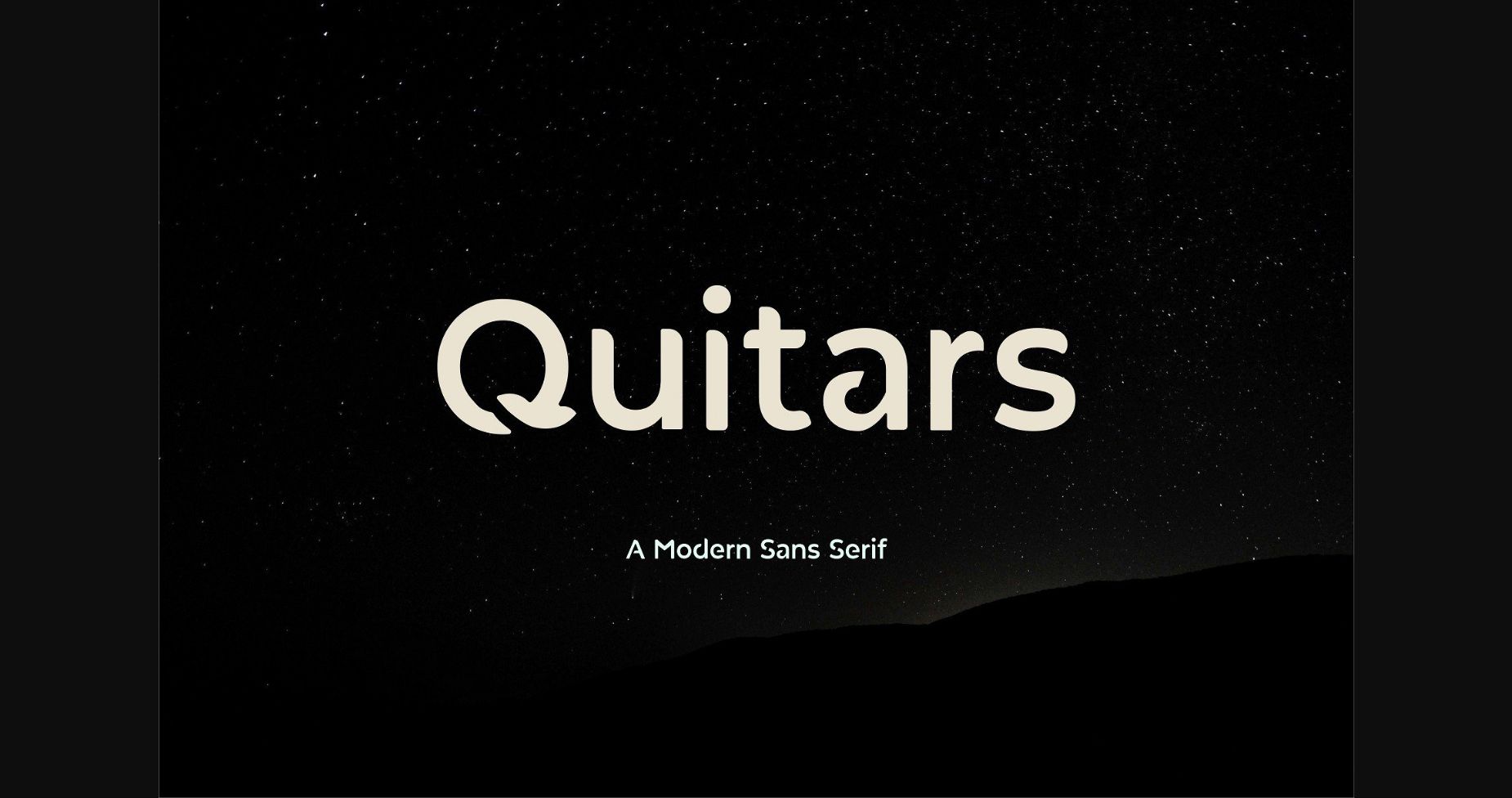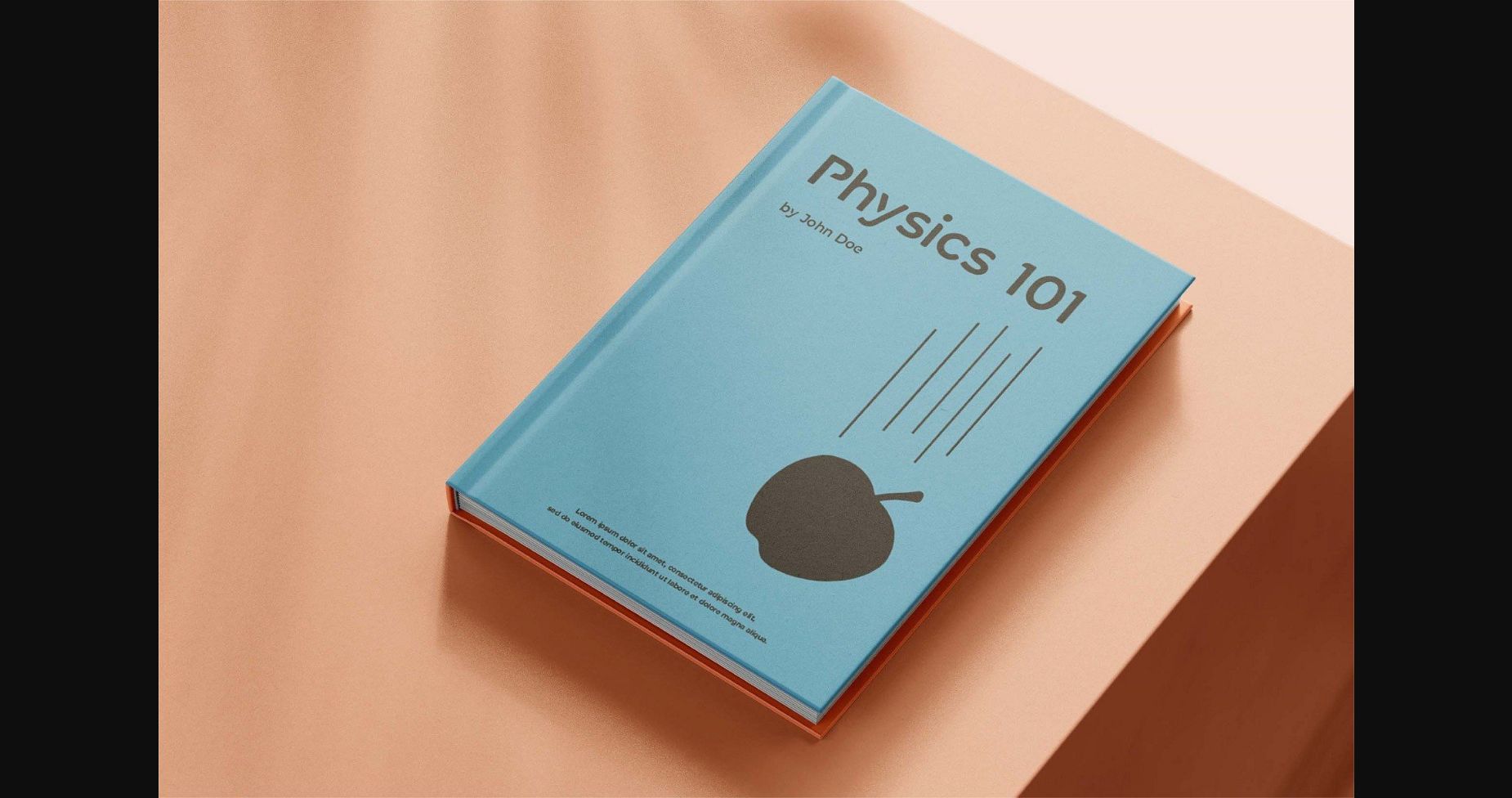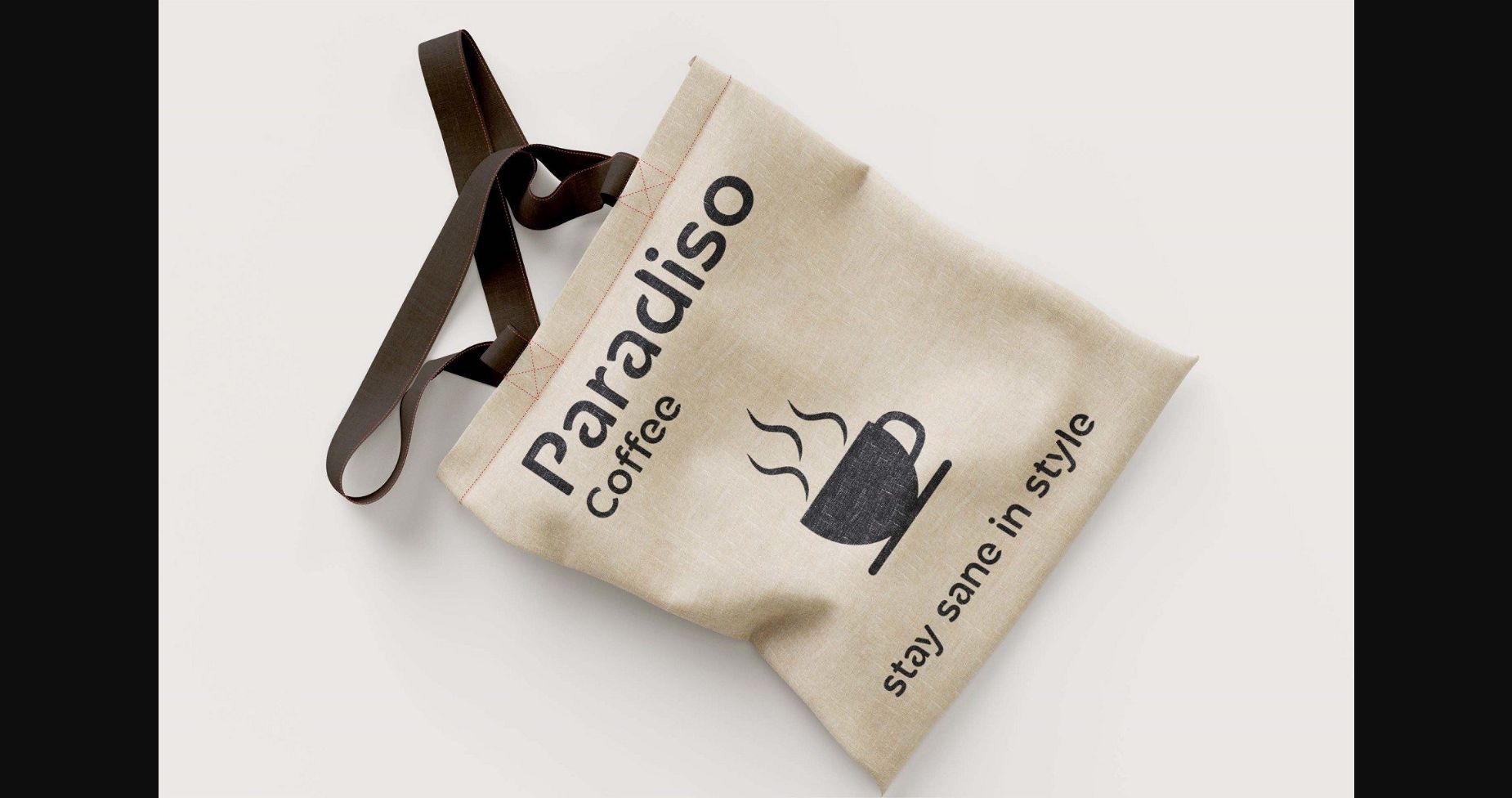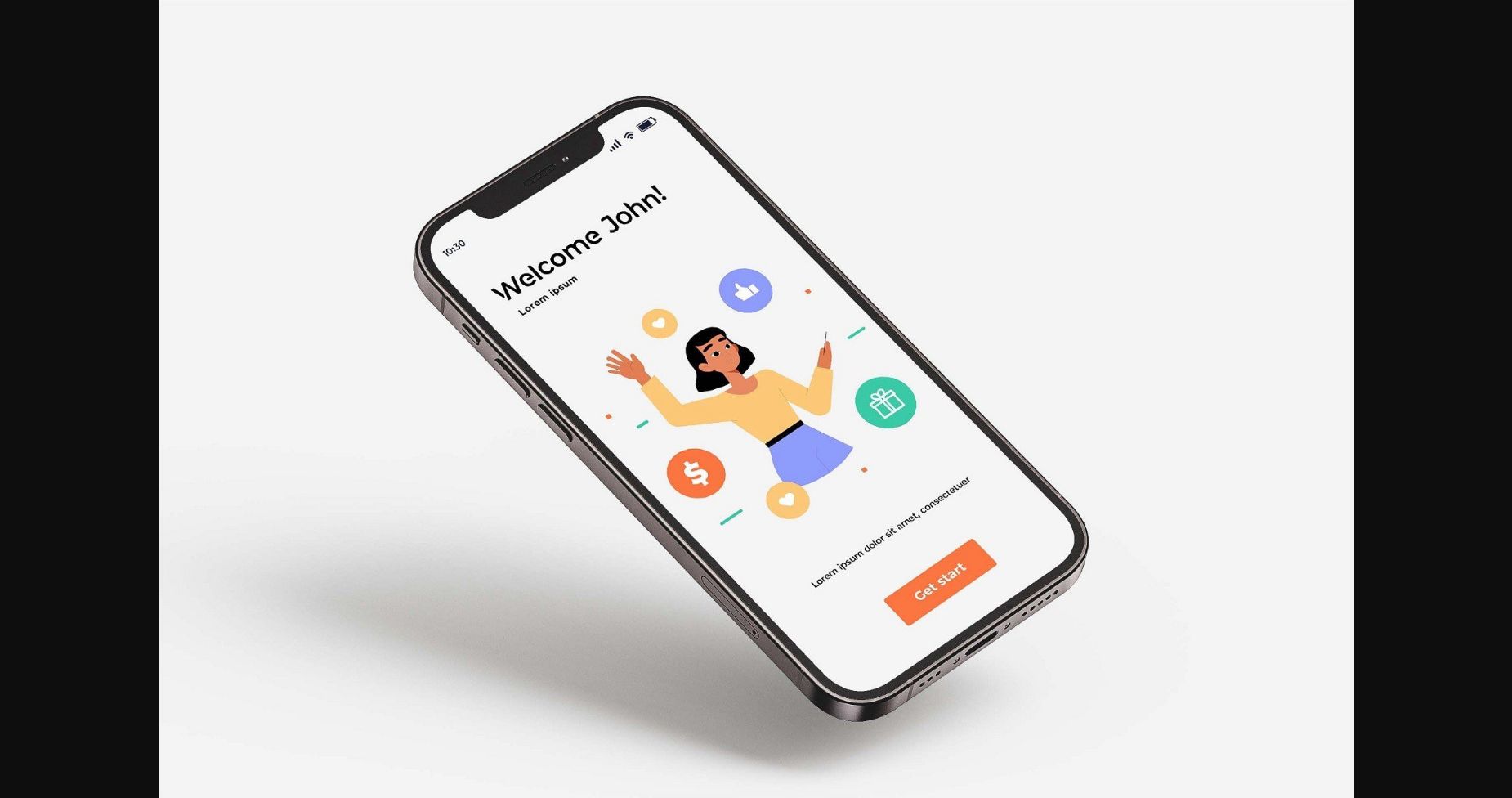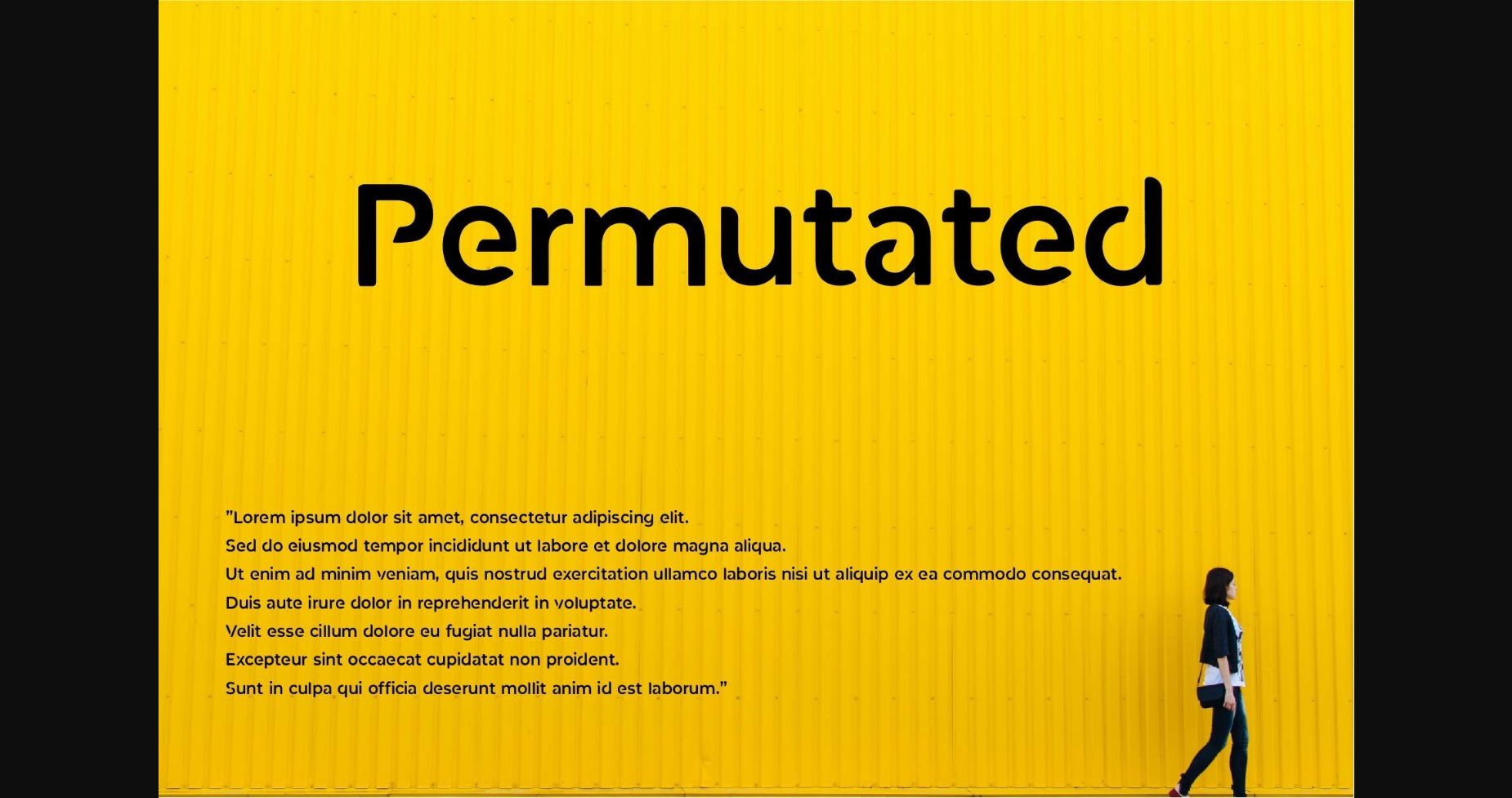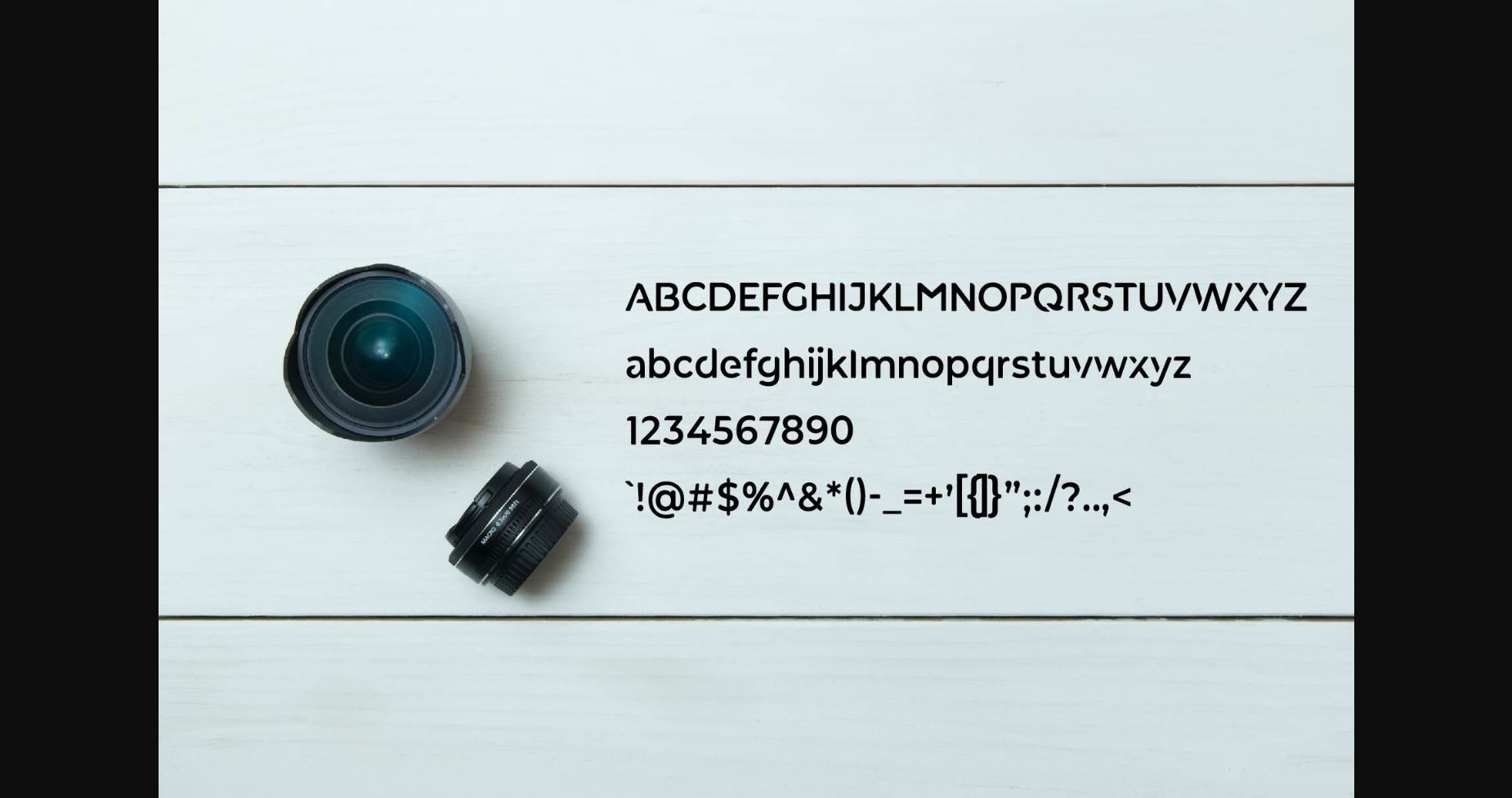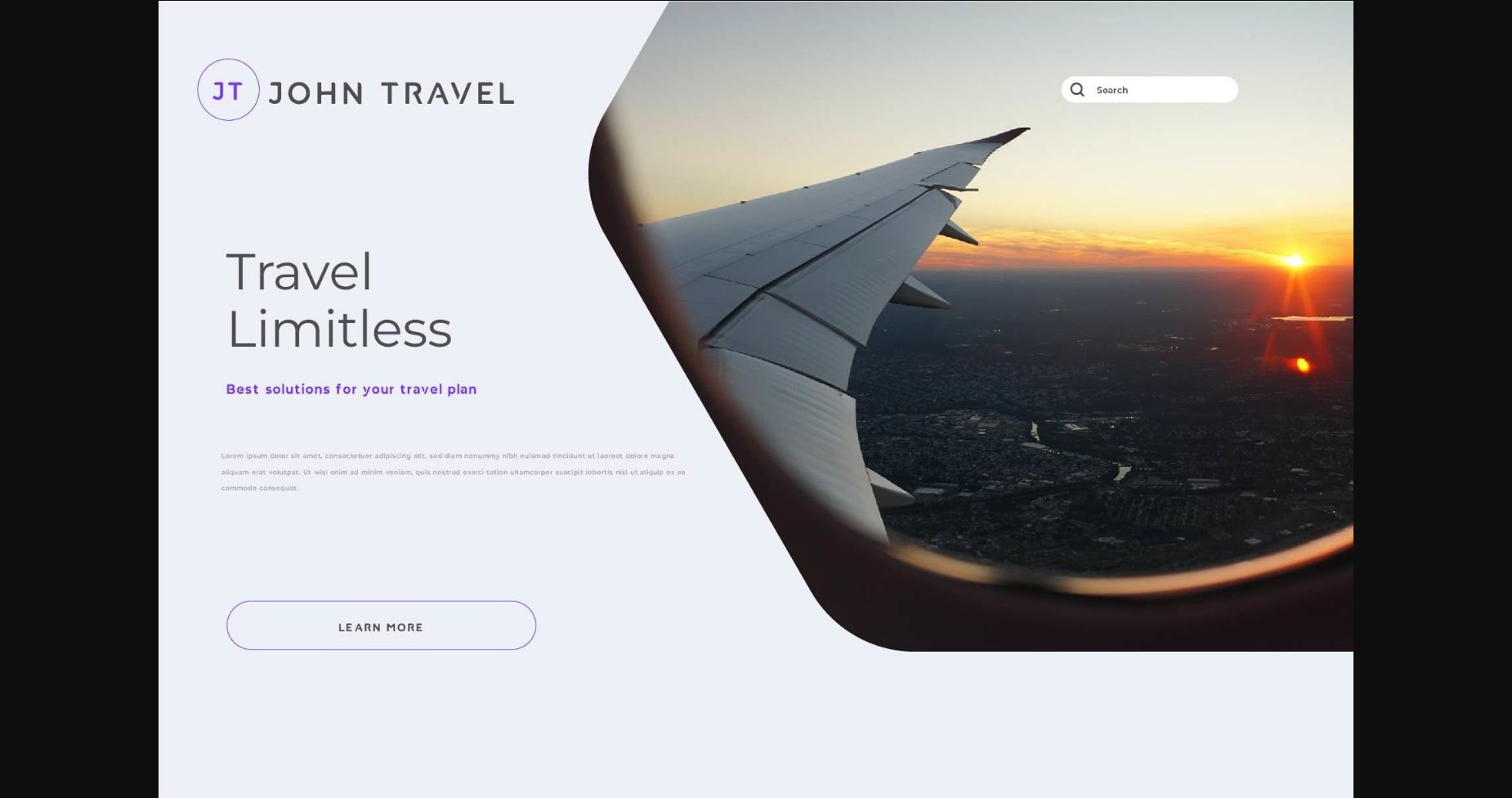
Quitars Font
About Quitars Font
Quitars is a modern and cool sans serif font. This typeface is a great way to add a personal touch to your digital creations. Whether you’re creating graphics for your business, writing your first novel, or just need a little help making your resume look more professional, this font will be a valuable asset.